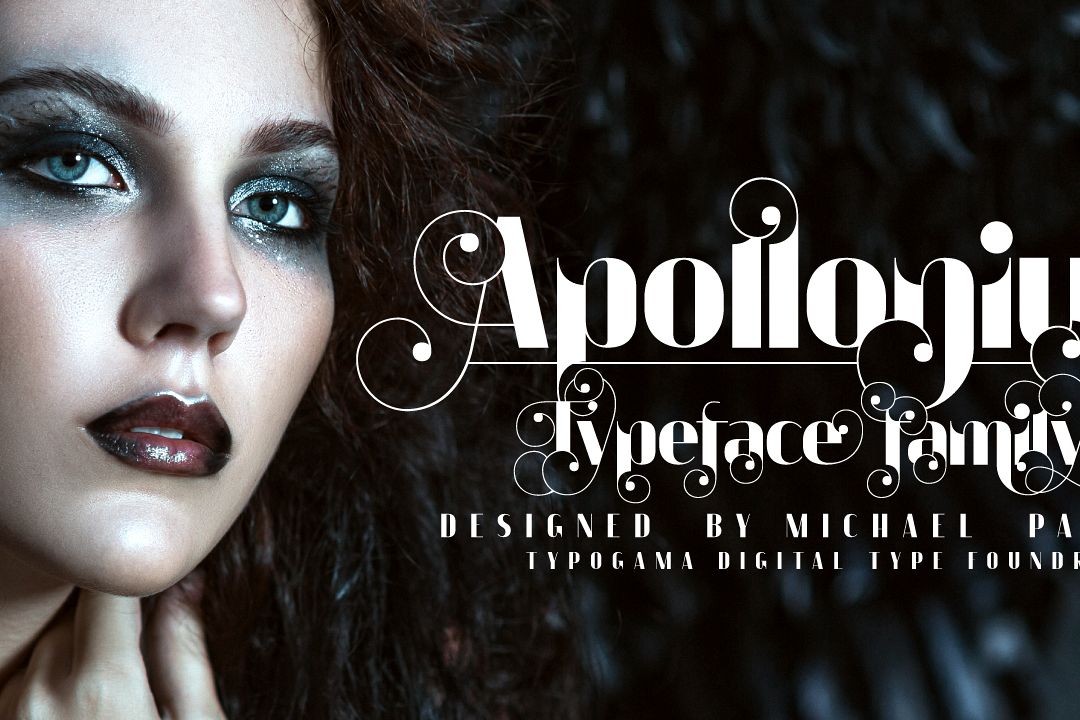
Apollonius
Apollonius is a high contrast, display typeface destined for use in branding, editorial design or tiles. Packed with Opentype features, this single weight font offers a whole range of options that designers can explore and play with to create stunning layouts.